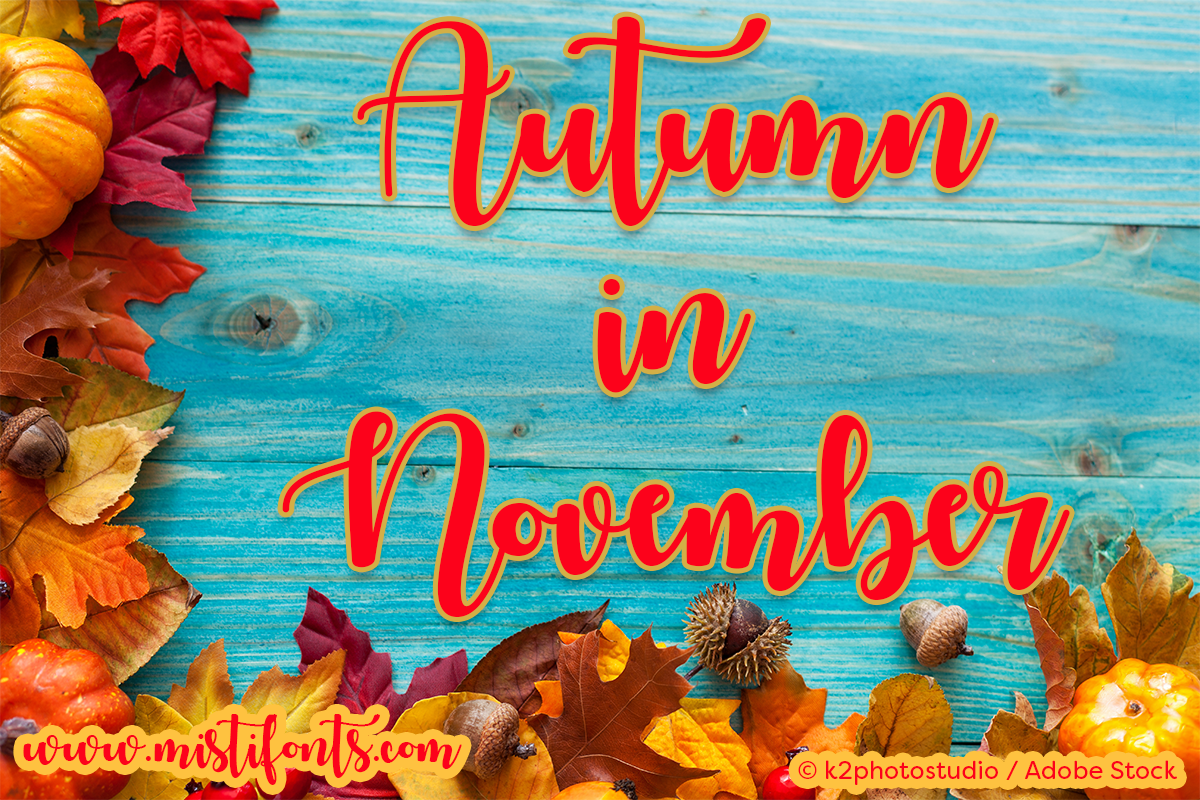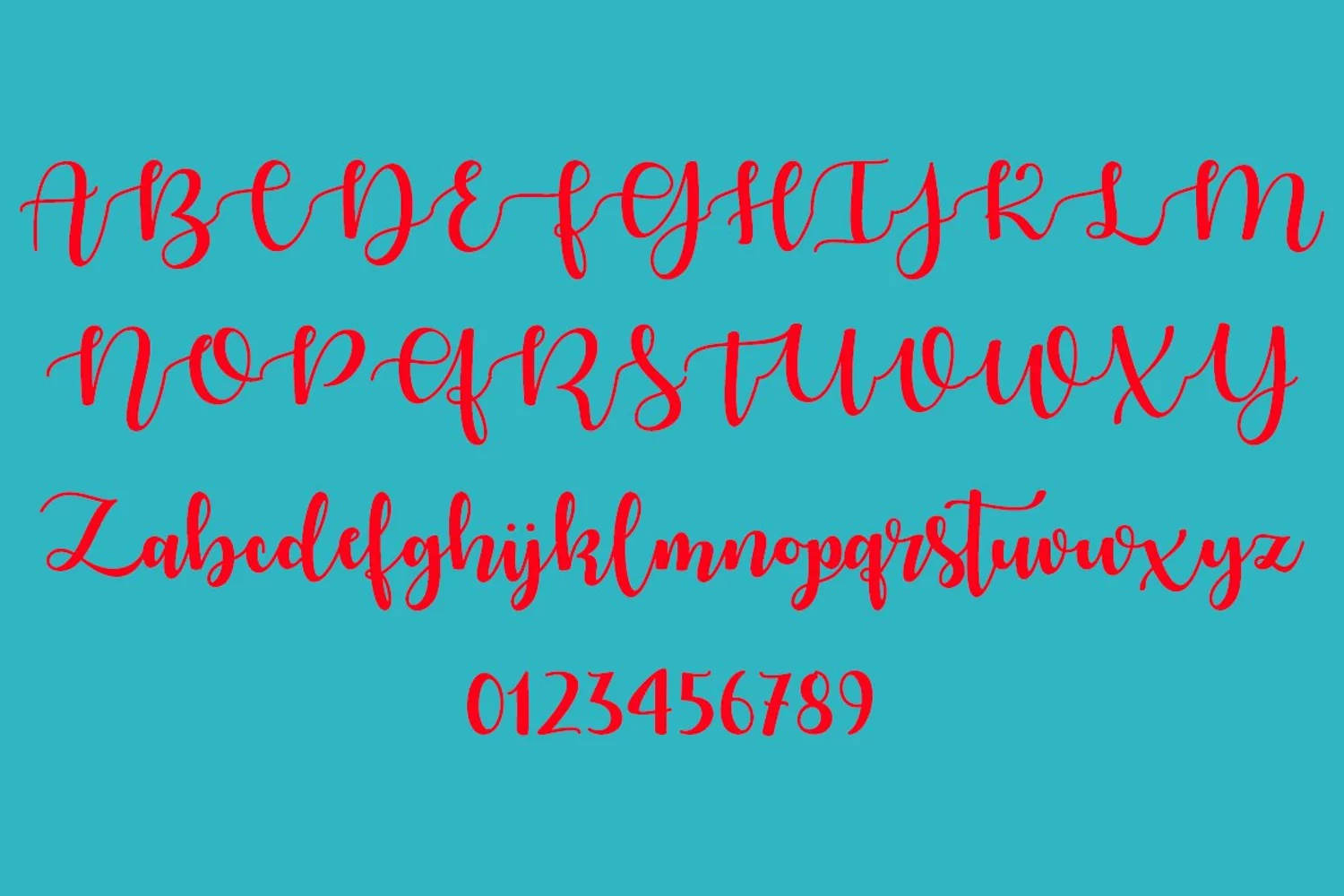
Autumn in November is bouncy, calligraphy font that is perfect for
your design and craft projects!
- 232 glyphs (including uppercase, lowercase, numbers, and punctuation)